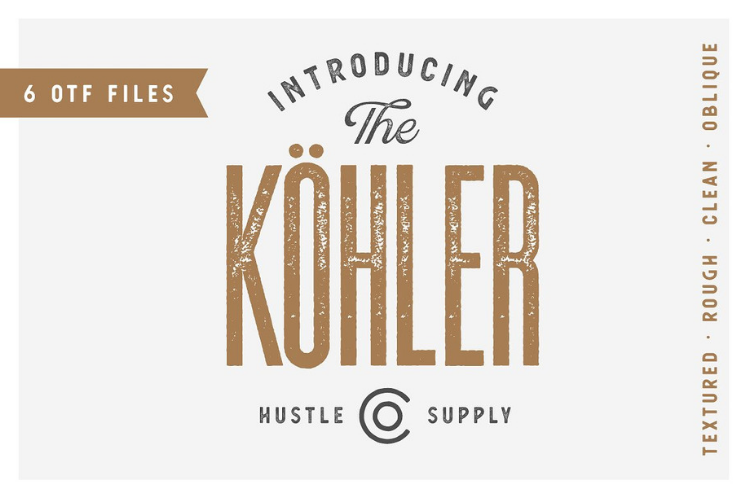
Köhler | Ultra Condensed Family - Font Family
Köhler
Köhler is a Condensed Headline Type Family. Köhler comes complete with 6 OTF files. Regular, Rough, Clean & Textured with Oblique counterparts. Köhler is a super condensed typeface with a vintage aesthetic but also doubles as a great modern typeface depending on the final use.
Köhler | Ultra Condensed Family - Font Family